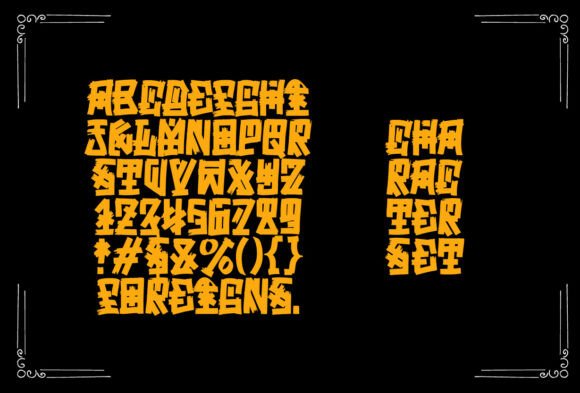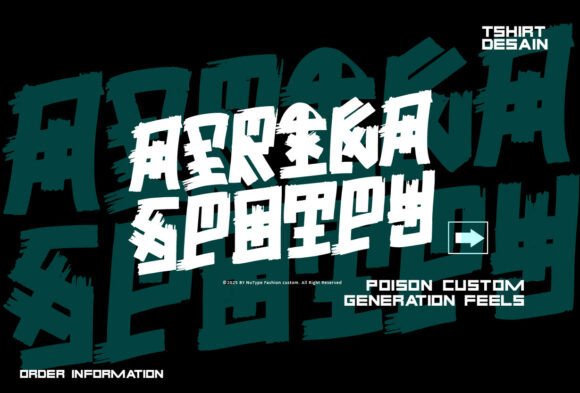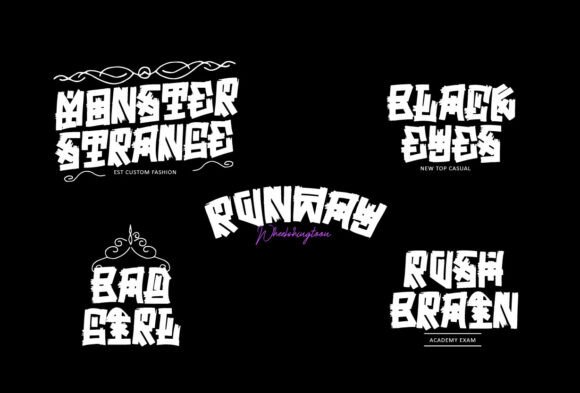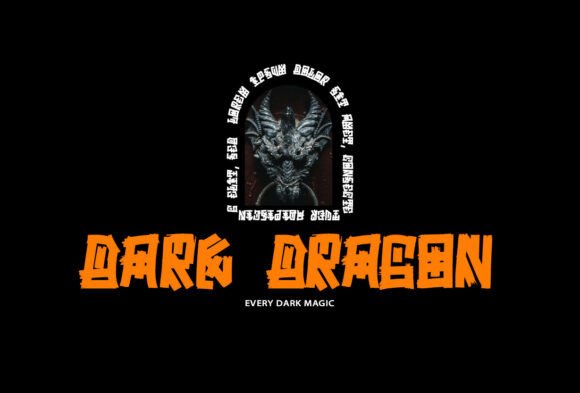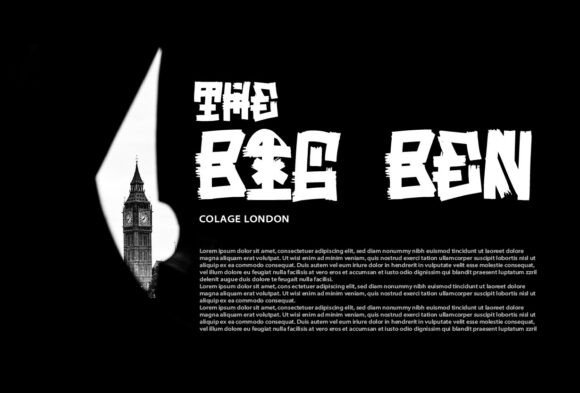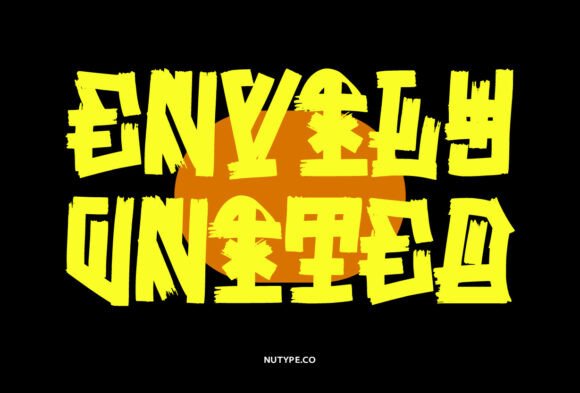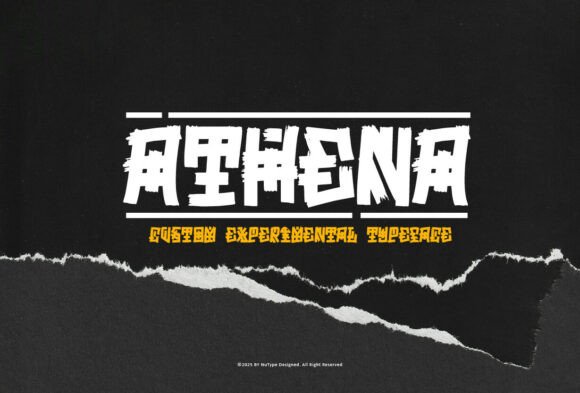
What Makes Athena Font Special?
Athena is a unique handcrafted display typeface inspired by the bold and geometric rhythm of Korean lettering. Each character is designed with a personal touch, making it feel organic and artistic while still keeping a strong modern vibe. This typeface is perfect for designers who want to add a distinctive and cultural flavor to their projects.
- ✨ Unique and eye-catching design that’s sure to turn heads
- ✅ Handcrafted feel that adds a personal touch to any project
- 💡 Experimental letterforms that bring out creativity and originality
- 🎨 Perfect for designers who want to add a cultural flavor to their work
While Athena Font is amazing, it’s not perfect. Here are a few things to keep in mind:
- 🤔 Limited character set – it’s a display typeface, after all!
- ⚠️ May not be suitable for body text due to its bold and geometric nature
The Story Behind Athena Font
Athena Font was designed by a team of creatives who wanted to bring a unique cultural flavor to the world of typography. Inspired by the bold and geometric rhythm of Korean lettering, they crafted each character with a personal touch, making it feel organic and artistic while still keeping a strong modern vibe.
Q: What inspired the design of Athena Font?
A: Athena Font was inspired by the bold and geometric rhythm of Korean lettering.
Q: Is Athena Font suitable for body text?
A: No, Athena Font is a display typeface and may not be suitable for body text due to its bold and geometric nature.